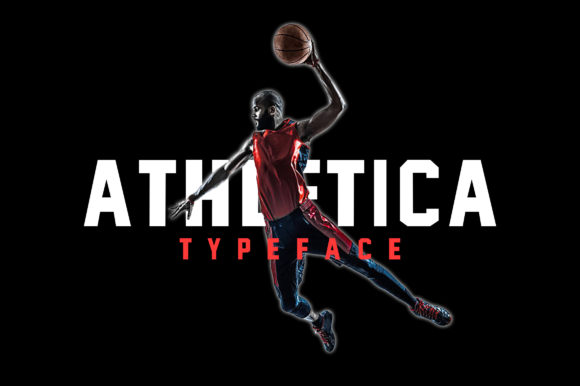
The Ultimate Display Font for Creatives: A Deep Dive into Athletica Font
I’ll never forget the time I was working on a project for a fitness brand, and I just couldn’t find the right font to capture the energetic and adventurous vibe they were looking for. I scoured the internet, tried out dozens of fonts, but nothing seemed quite right. That was until I stumbled upon Athletica Font. It was like a breath of fresh air – bold, thick lettered, and assertive, it perfectly encapsulated the spirit of the brand. In this article, I’ll share my experience with Athletica Font, its features, and how to make the most of it in your designs.
A Personal Review of Athletica Font
- ✨ Bold and Assertive: Athletica Font is perfect for making a statement. Its thick letters and confident demeanor make it ideal for headlines, titles, and any other text that needs to grab attention.
- ✅ Versatile: Despite its bold nature, Athletica Font works surprisingly well for a variety of projects, from sports and games to dance and adventurous activities.
- 🎉 Easy to Read: Even at smaller sizes, Athletica Font remains clear and legible, making it a great choice for body text or when you need to convey a lot of information.
While Athletica Font is an excellent addition to any designer’s toolkit, it’s not without its quirks. For instance:
- 🤔 Limited Use in Body Text: While Athletica Font is great for headlines and titles, it may not be the best choice for lengthy body text. Its bold nature can be overwhelming in large blocks of text.
- ⚠️ Not Suitable for All Audiences: The font’s bold and assertive personality may not be suitable for all audiences or projects. For example, it may not be the best choice for a luxury brand or a project that requires a more subtle approach.
The Backstory of Athletica Font
Athletica Font was designed with the sports and fitness industry in mind. Its creator, a passionate designer and athlete, wanted to create a font that captured the energy and excitement of competition. The result is a bold, assertive font that’s perfect for any project that requires a strong personality.
Q: What is Athletica Font?
Athletica Font is a bold, thick lettered and assertive display font, perfect for sports, games, dance projects, and various other adventurous activities.
Q: Is Athletica Font suitable for body text?
While Athletica Font is great for headlines and titles, it may not be the best choice for lengthy body text. Its bold nature can be overwhelming in large blocks of text.